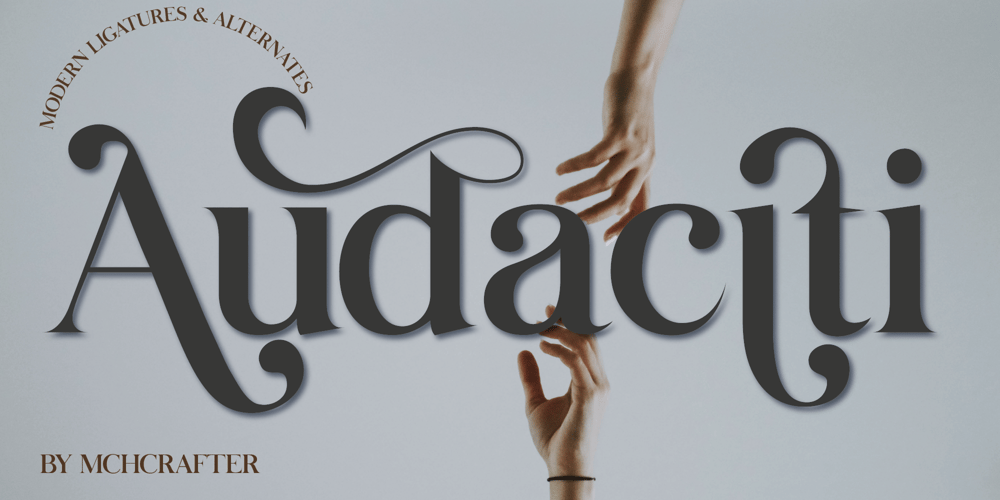
Audaciti
Audaciti font
Audaciti Font Family was designed by El Mehdi CHOUYOUKH and published by Mchcrafter. Audaciti contains 1 styles and family package options. Audaciti Font is a Modern Stylistic Serif typeface A new serif that we created specially for branding needs, with extra ligatures and alternates in a unique shape just to add value to your brand. It so nice to leverage designer or product owner that need solutions to make their design look more stylish and modern. And specially for Audaciti Font , We prepared all the ligatures, and the alternates characters to help you create unlimited variations for your creative needs.A wide range of useful glyphs are included – see preview image of all glyphs.Audaciti Font includes: All uppercase & lowercase letters All numbers 0-9 & Punctuation Ligatures & Alternates Symbols Multiligual Letters